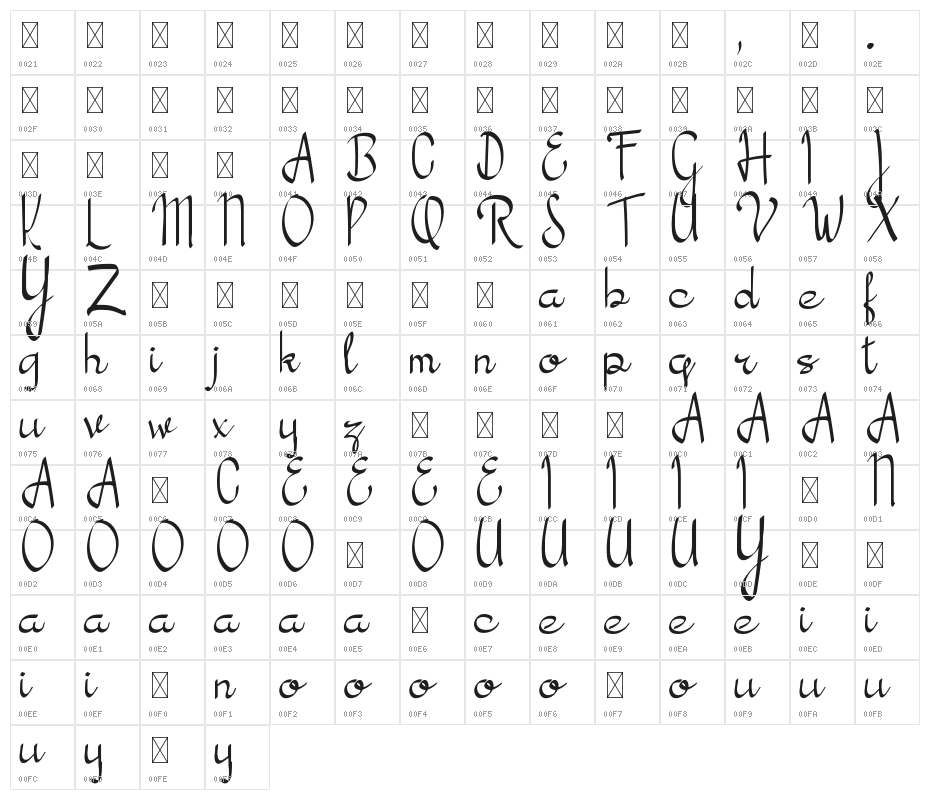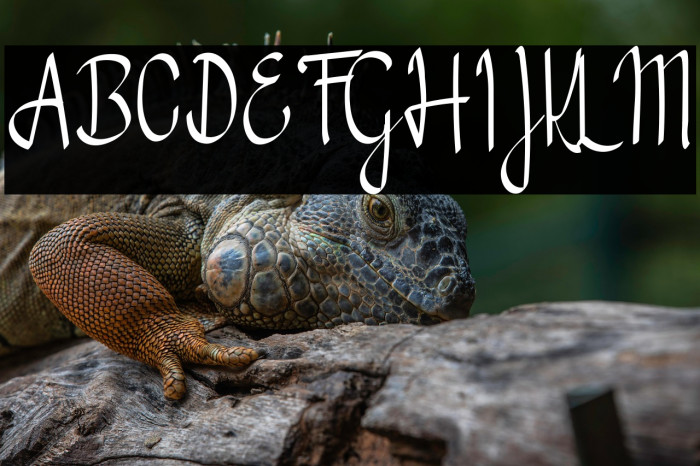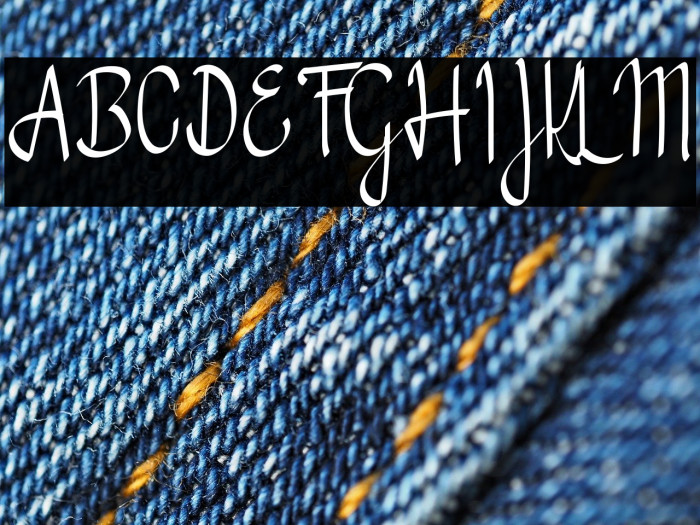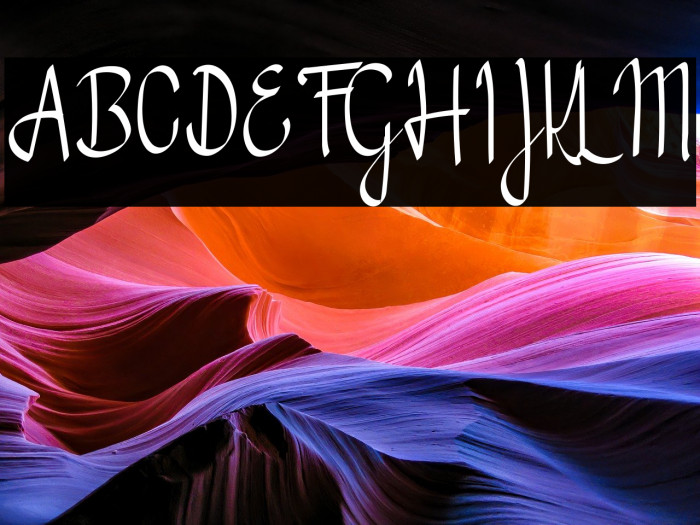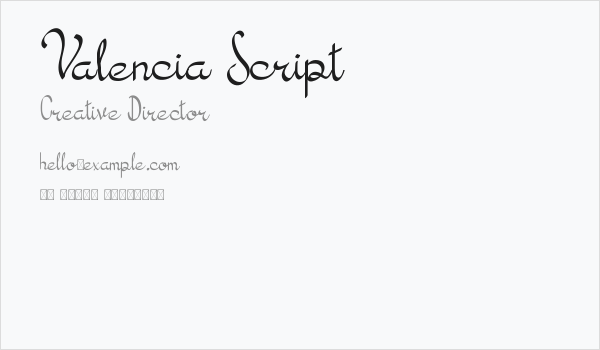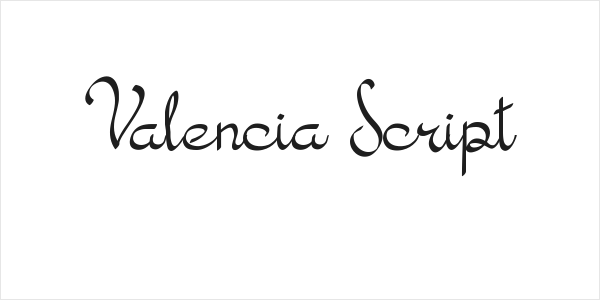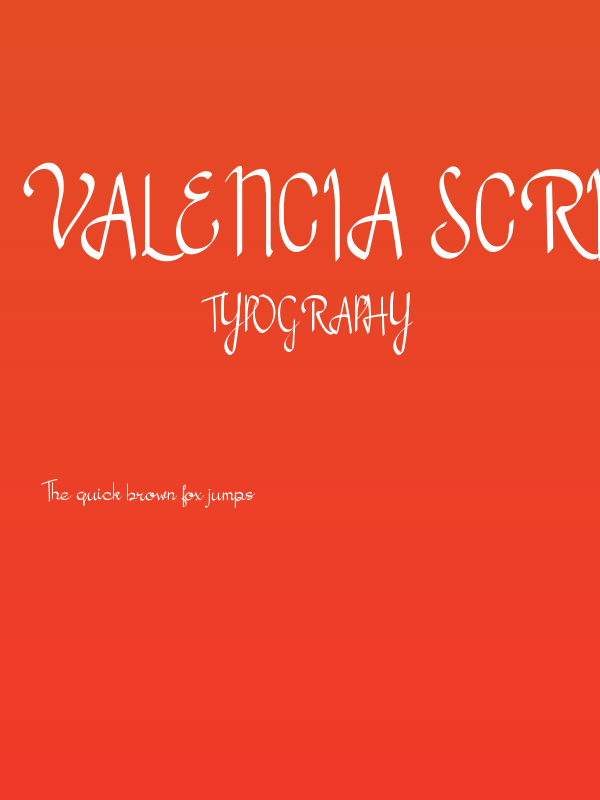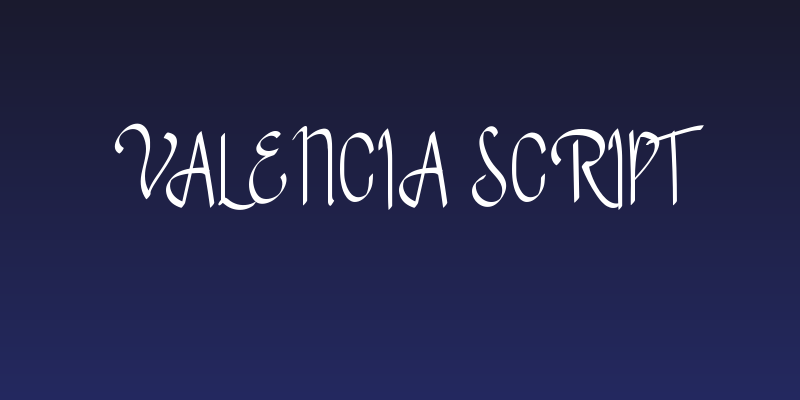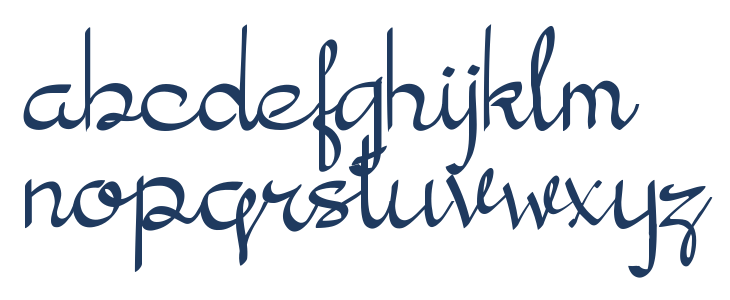
Valencia Script Font
Valencia Script Description
This font features an elegant and flowing script style, characterized by its smooth, cursive strokes and artistic flair. The uppercase letters exhibit a graceful, elongated form with subtle flourishes, while the lowercase letters maintain a consistent, fluid motion that enhances readability. The overall design is reminiscent of traditional calligraphy, offering a sense of sophistication and charm. The font's unique style is ideal for projects that require a personal touch, such as invitations, greeting cards, or branding materials. Its artistic nature makes it suitable for creative and expressive designs.